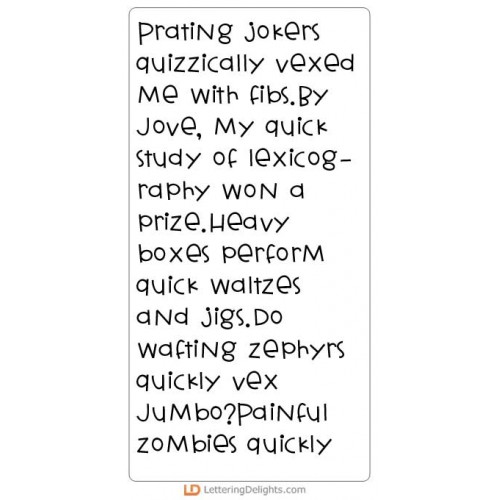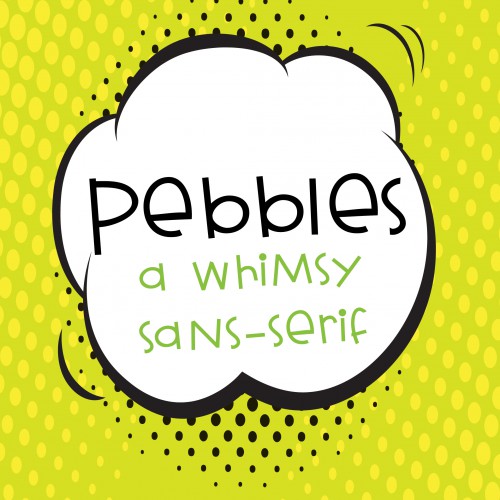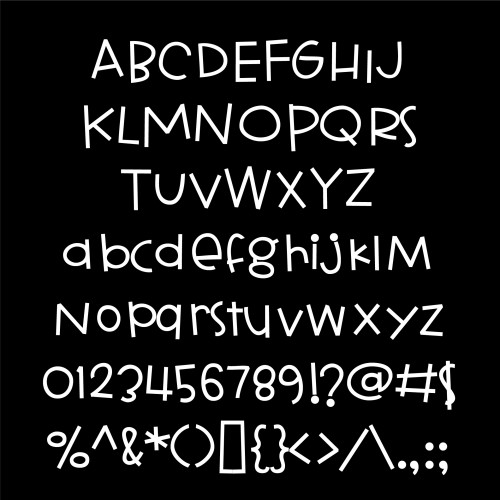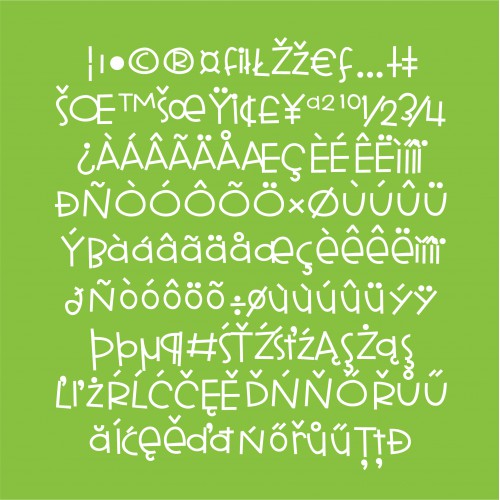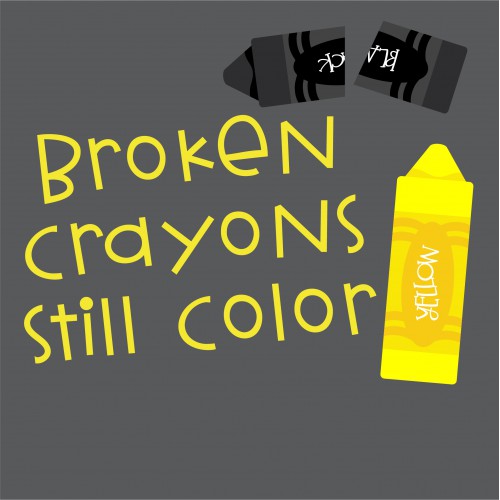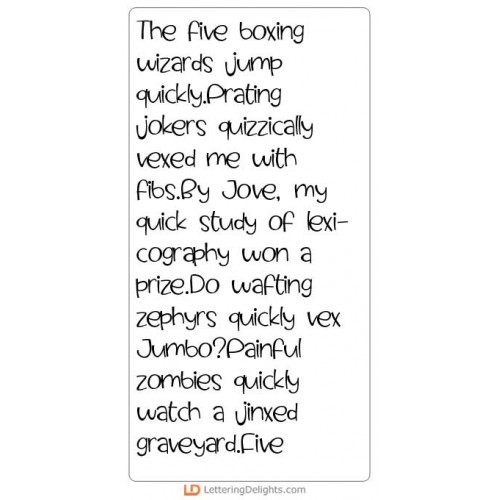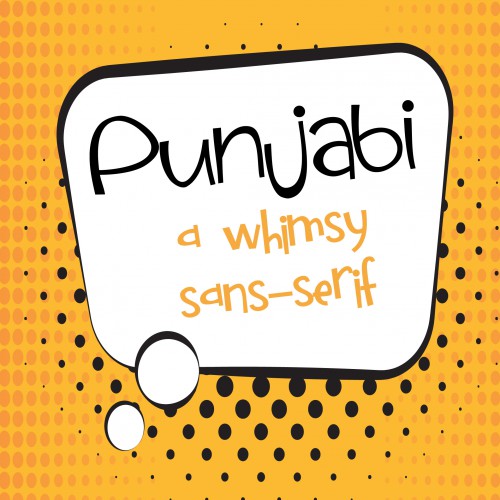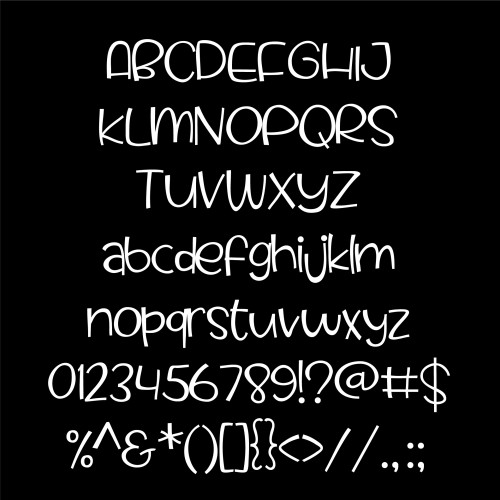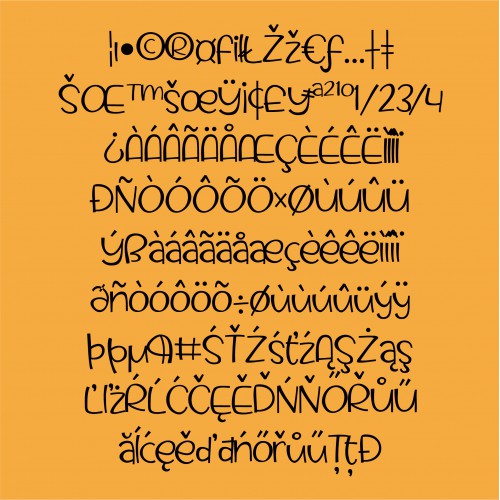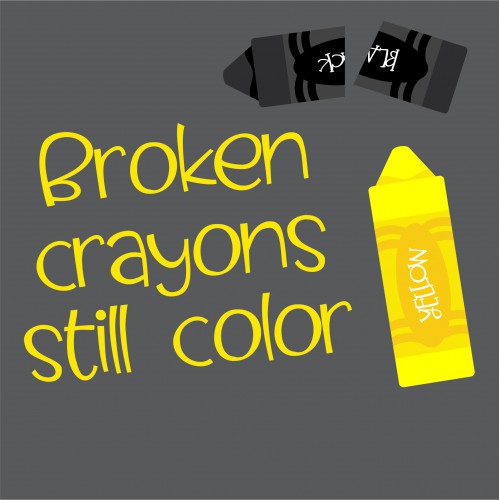
Silly Kids - Font Bundle
PN Pebbles
This hand-printed, sans-serif font has a youthful, whimsical feel.This casual and fun, hand-printed ..
PN Punjabi
This casual and fun, hand-printed font has a whimsical quality to it...
ZP Topsy Turvy
This cute and whimsical font has a bit of toggle in the lettering..
ZP Retrofit
This very youthful font has a whimsical feel to it...
ZP Sidewinder
This hand-crafted quasi-script is a perfect complement to the ZP Sidewalking fonts...
ZP Snogville
This joyful font is a very happy sans-serif font with a bit of bounce in the baseline...
ZP Stranger
This hand-written, sans serif font has a bit of shakiness to it...
ZP Tilapia
This youthful, hand-written font is a fun and whimsical font with a little toggle throughout...
PN Stay Woke
This adorable, youthful font has a mix of script and print in the lowercase...
PN Workshop
This is a fun and silly font good for all occasions...
ZP Backseat
This hand-crafted font has a whimsical feel to it...
PN Dilly Dally
This bold, serif font is blocky and squared off for a whimsical look...
PN Happy Heyday
This adorable and happy, sans serif font has a lot of bounce in the baseline...
PN Bumbershoot
This fun funky font is perfect for titles, posters, and works great for journaling too!..
ZP Good Job Bob
This adroable, textured hand-crafted font features several cute ligatures that will appear when you ..